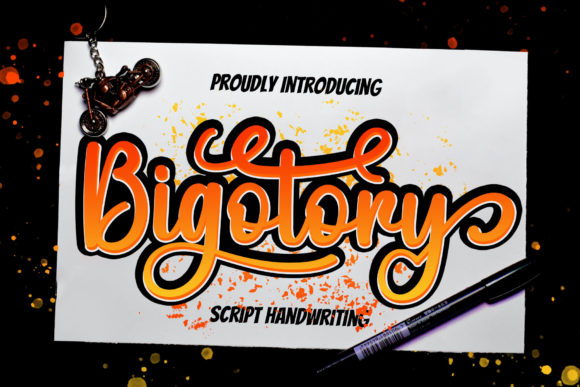
Introducing Bigotory Font: Elevate Your Designs with Elegance and Flair
In the world of typography, the right font can make all the difference in transforming a design from ordinary to extraordinary. For designers and crafters seeking a touch of sophistication and elegance, Bigotory Font is an exquisite choice. This delicate, elegant, and flowing handwritten font is designed to bring a new level of refinement to your creative projects.
The Beauty of Bigotory Font
Bigotory Font stands out with its beautifully crafted and well-balanced characters. Each letter is designed with precision and care, ensuring that the font exudes a sense of luxury and poise. The flowing nature of Bigotory Font makes it incredibly versatile, allowing it to complement a wide range of designs, from modern and minimalist to vintage and ornate.
Whether you’re working on a branding project, creating wedding invitations, or designing packaging, Bigotory Font can add a touch of class and sophistication that elevates your work. Its elegant appearance makes it perfect for projects where you want to convey a sense of refinement and style.
One of the key advantages of Bigotory Font is its versatility. It can seamlessly integrate into various design contexts, making it a valuable addition to any designer’s toolkit. Here are a few ways you can use Bigotory Font to enhance your projects:
- Branding and Logotypes: Use Bigotory Font to create elegant and memorable brand identities that stand out from the crowd.
- Wedding and Event Stationery: Add a touch of romance and sophistication to your wedding invitations, save-the-date cards, and other event materials.
- Packaging Design: Elevate your product packaging with a font that communicates luxury and quality.
- Digital and Print Media: Whether you’re designing for digital platforms or print, Bigotory Font adapts beautifully, ensuring your message is conveyed with style.
Bringing Your Ideas to Life
Bigotory Font is more than just a typeface; it’s a tool that can breathe life into your creative ideas. By incorporating this elegant font into your designs, you can:
- Enhance Visual Appeal: The aesthetic charm of Bigotory Font instantly adds visual interest to your designs, making them more engaging and captivating.
- Convey Emotion and Tone: The delicate and flowing nature of the font can evoke emotions and set the tone for your message, helping you connect with your audience on a deeper level.
- Stand Out: In a world flooded with generic designs, Bigotory Font can be your secret weapon to stand out and make a lasting impression.
Bigotory Font is a beautiful, elegant, and versatile handwritten font that can elevate your designs to new heights. Its delicate and flowing characters make it perfect for a wide range of projects, from branding and packaging to wedding stationery and digital media. By incorporating Bigotory Font into your design toolkit, you’ll have the power to create stunning, sophisticated designs that leave a lasting impression. So why wait? Discover the elegance of Bigotory Font today and watch your creative ideas come alive!